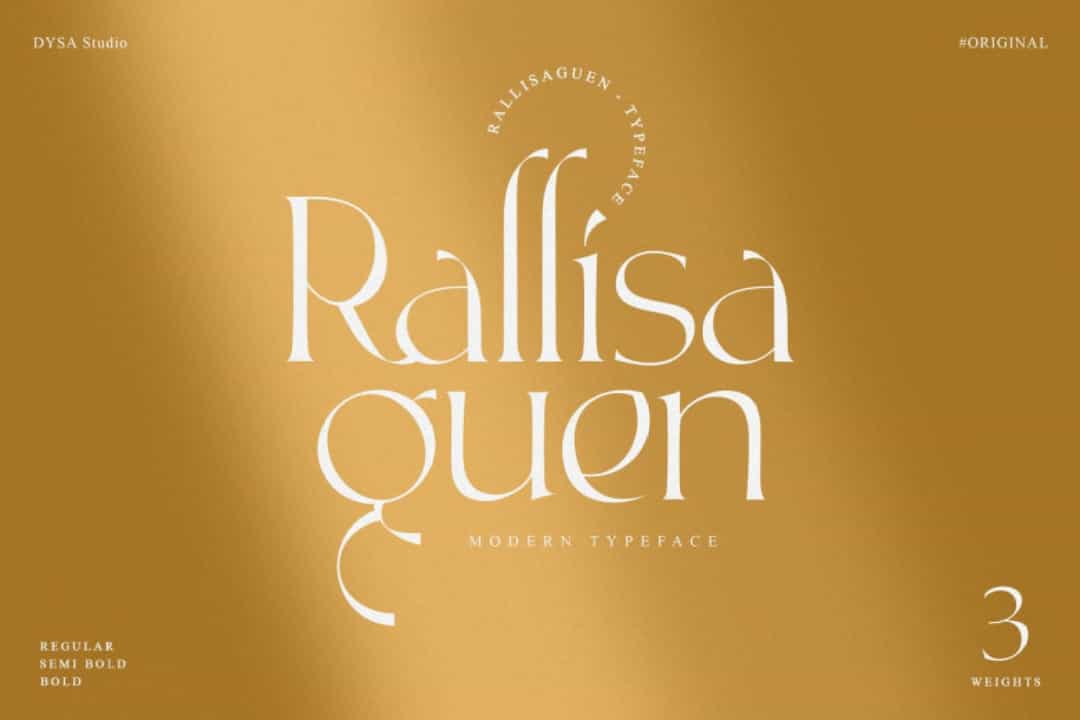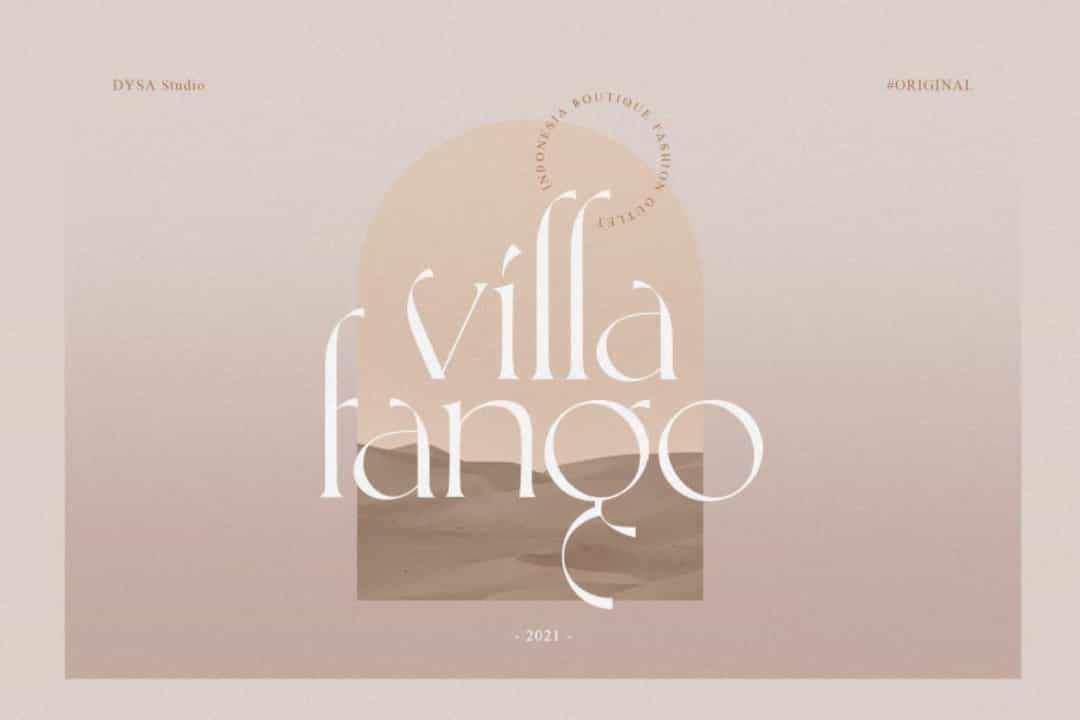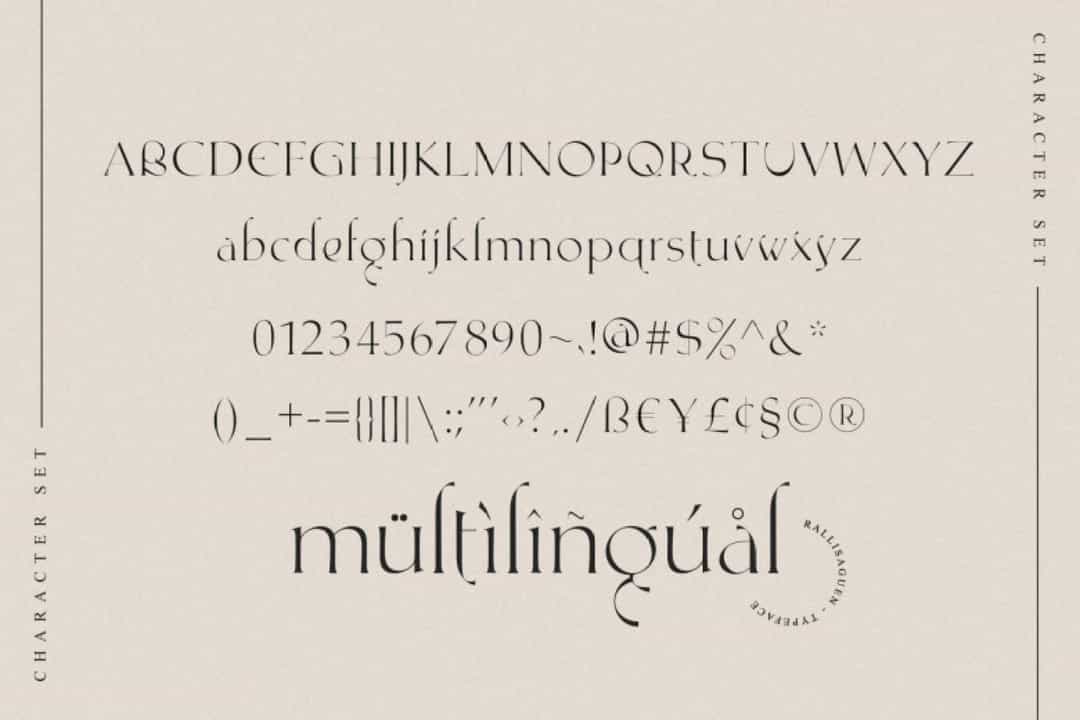
Rallisaguen is an elegant New Modern Serif Typeface. Perfect for branding purposes and business ventures alike. Rallisaguen features clean edges which give it the feel of handcrafted work.